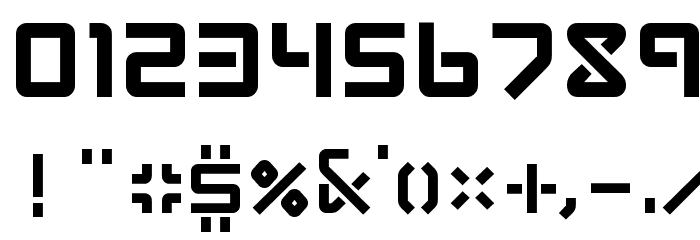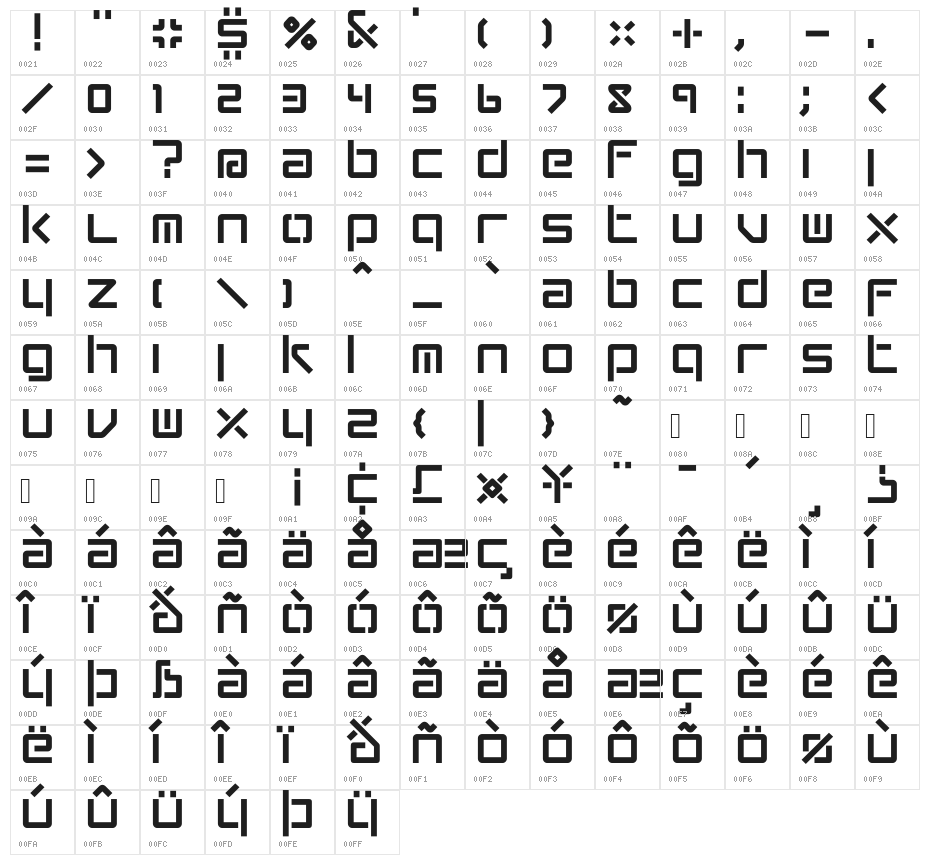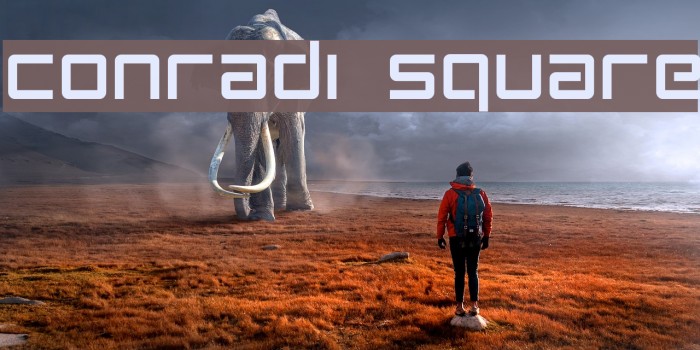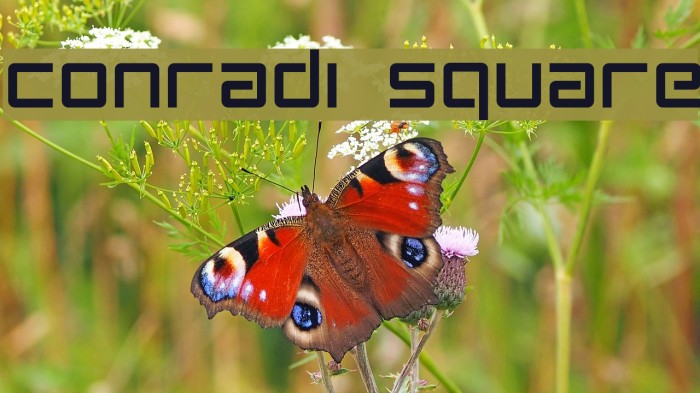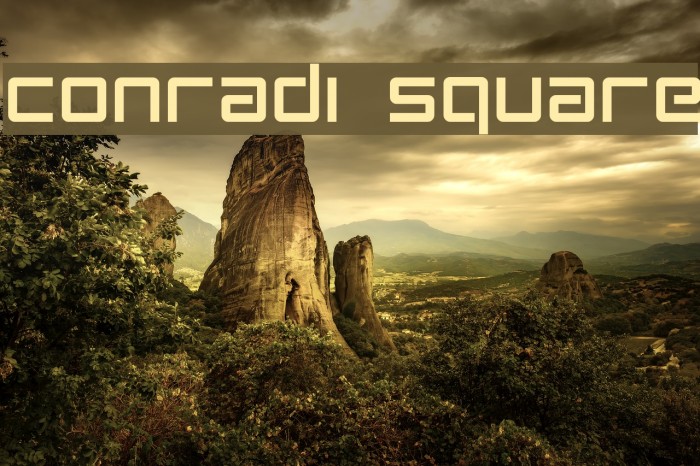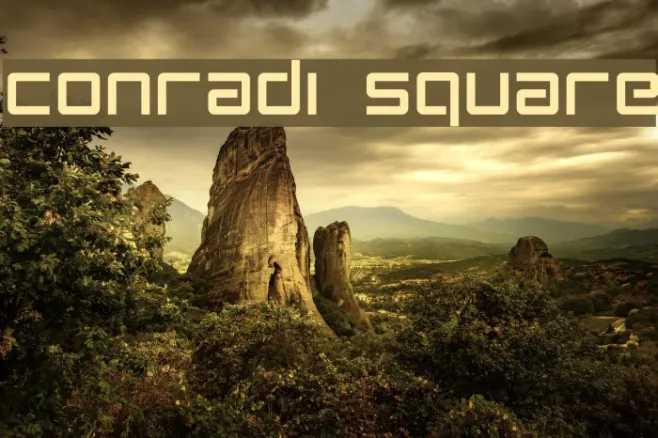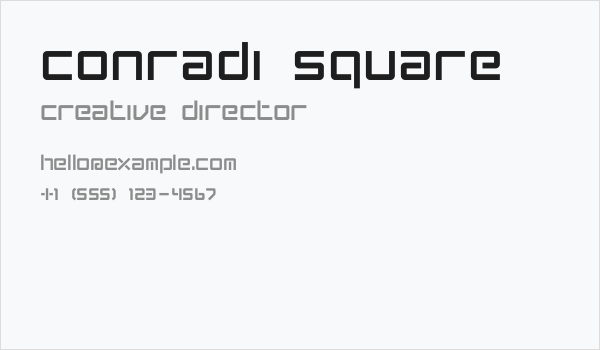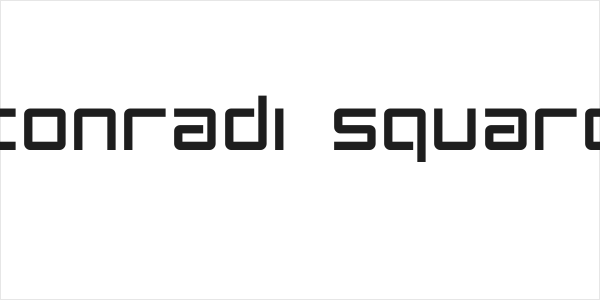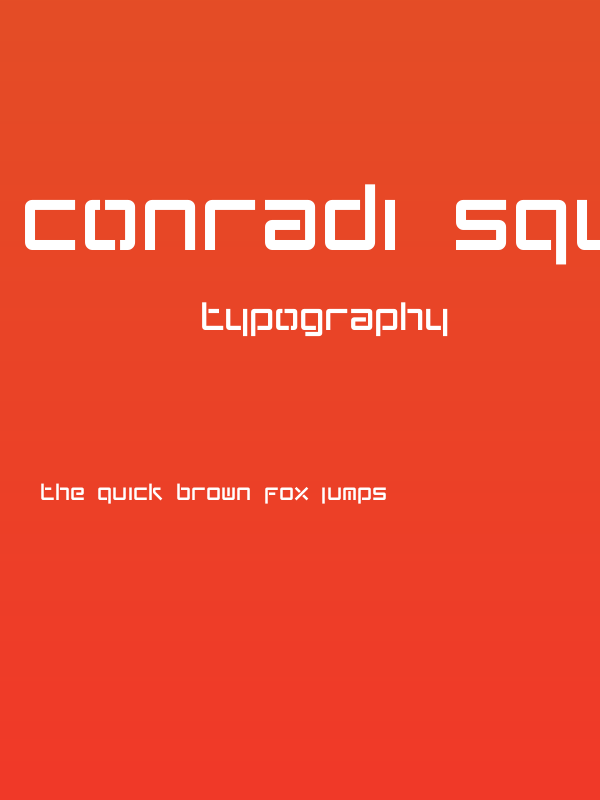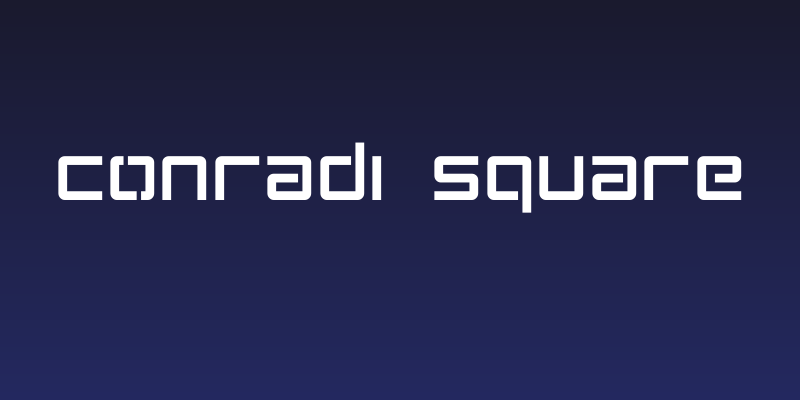
Conradi Square Font
Conradi Square Description
This font features a geometric and modular design with a distinctly modern and futuristic aesthetic. Each character is constructed with a consistent stroke width, giving it a uniform appearance. The characters are primarily composed of straight lines and right angles, creating a square-like structure that is both bold and eye-catching. The font maintains a clean and minimalistic look, with a slight emphasis on horizontal and vertical lines, which enhances its readability. The numerals and special characters follow the same design principles, ensuring a cohesive look across all glyphs. This font is ideal for projects that require a contemporary and tech-inspired feel.
| Proposed Projects | Ideal for tech branding, digital interfaces, modern posters, and futuristic designs. |